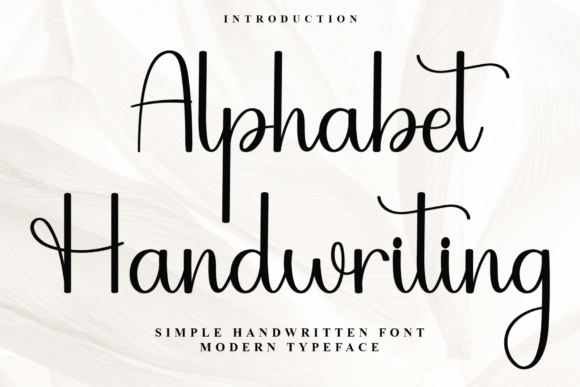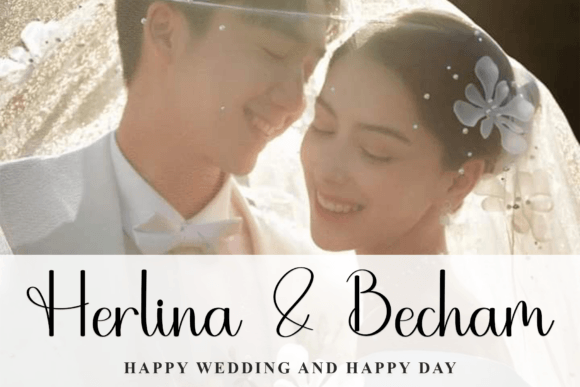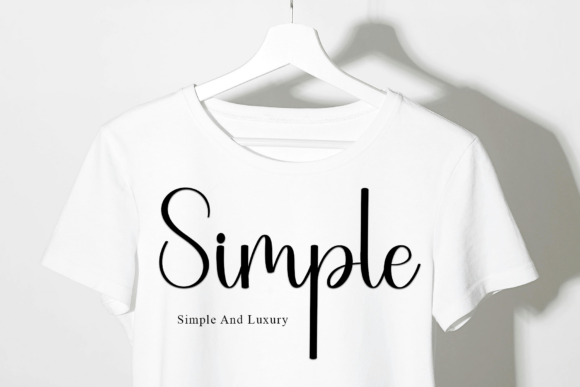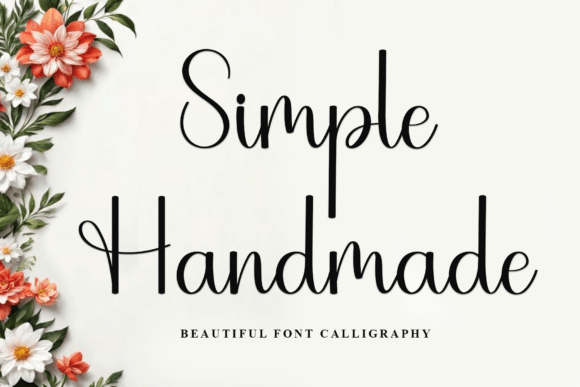
Alphabet Handwriting Font
About the Alphabet Handwriting Font
The Alphabet Handwriting Font offers a perfect balance of form and function for your design needs. Alphabet Handwriting is a festive and merry typeface that captures the spirit of the holiday season. With its decorative elements and whimsical flair, it adds a touch of enchantment to your designs. Perfect for greeting cards, gift tags, and holiday-themed projects, this font brings a cheerful and nostalgic ambiance to your words. Let your typography shine with the magic of Beautiful Font!
Its playful, slightly whimsical nature makes it ideal for short headlines, branding elements for children’s products or festive events, and packaging designs requiring a touch of charm. Avoid using it for body text or lengthy paragraphs; its decorative elements can become visually overwhelming and difficult to read at smaller sizes. Similarly, it’s not suitable for UI applications requiring high legibility.
Consider pairing Alphabet Handwriting with a clean sans-serif like Open Sans for a balanced contrast, or a more geometric sans-serif for a modern feel. For a more traditional approach, a simple serif like Garamond would provide a sophisticated counterpoint. Avoid pairing it with other highly decorative fonts, which would create visual clutter.
The font’s overall personality is best described as cheerful and nostalgic, lending itself to brands emphasizing fun, tradition, or a sense of childhood wonder.
Alphabet Handwriting Font Usage Examples
Alphabet Handwriting Font Example